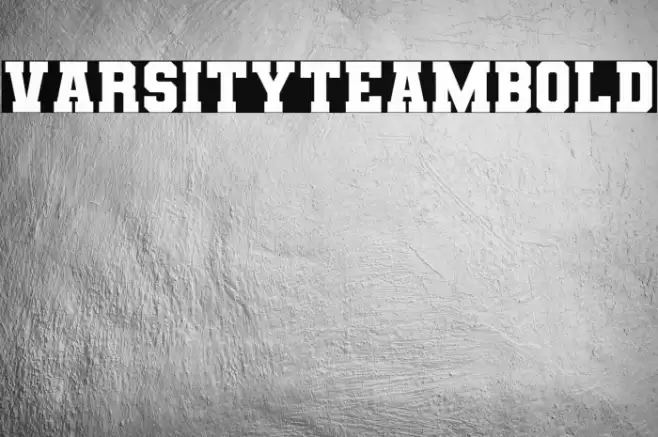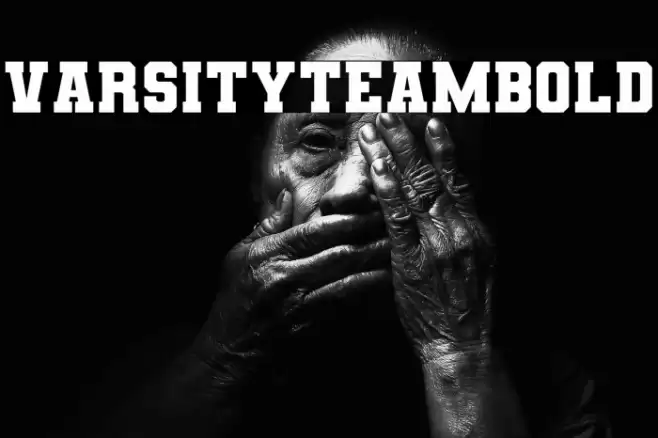
VarsityTeamBold Font
VarsityTeamBold Description
This font features a bold, athletic style reminiscent of traditional varsity lettering. The characters are blocky and robust, with a strong presence that commands attention. Each letter is designed with a consistent thickness, giving it a uniform appearance. The edges are slightly rounded, adding a touch of softness to the otherwise strong and angular design. The numbers and special characters maintain the same bold and impactful style, ensuring consistency across all elements. This font is perfect for projects that require a sporty, collegiate feel.
A bold, athletic font with a classic varsity style from Uncategorized fonts.
- Proposed Projects: Ideal for sports team branding, school spirit merchandise, event posters, and athletic apparel.
- Overall Style: Classic